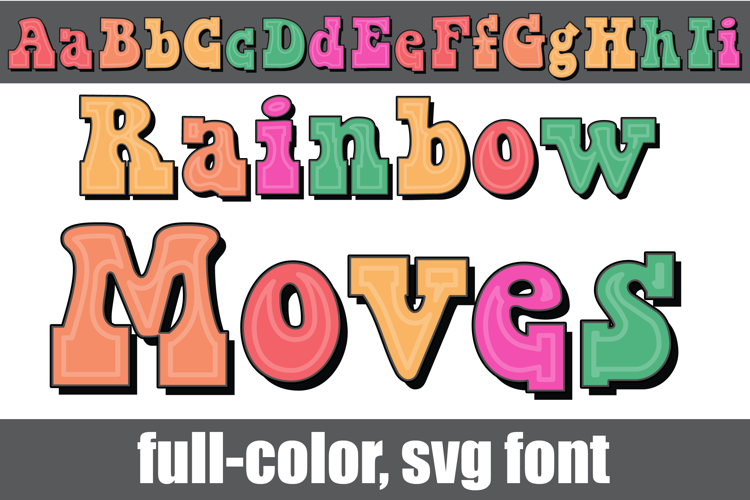
Rainbow Moves
This full-color font features a retro style, serif font in a rainbow color palette. There is an alt case of additional colors of each letter that you can access through your system or Silhouette's glyph map.